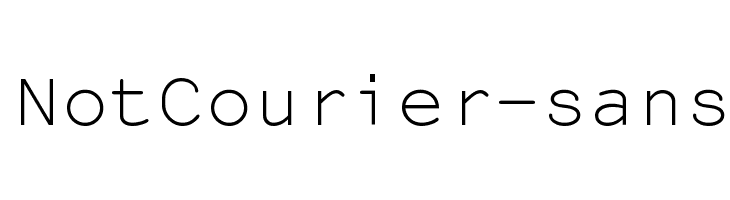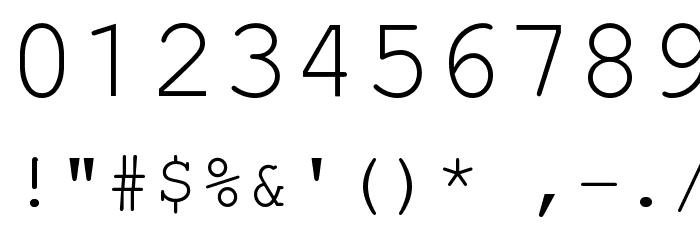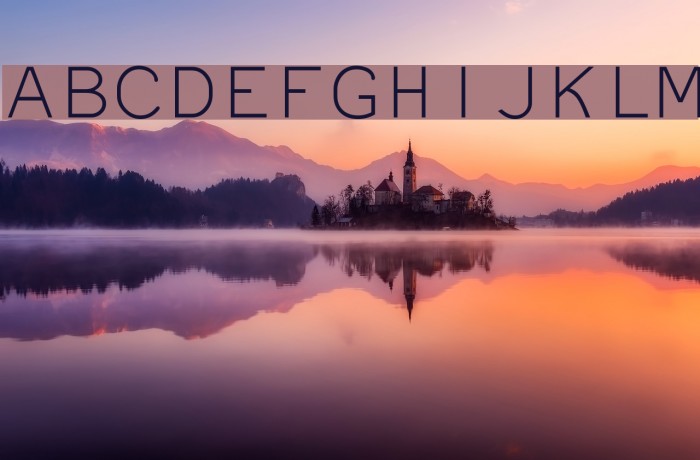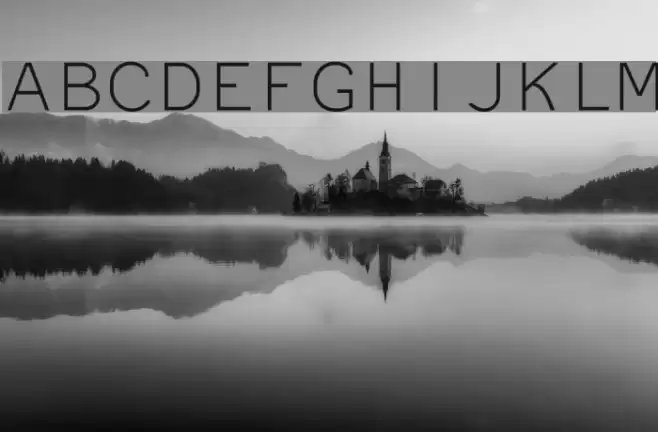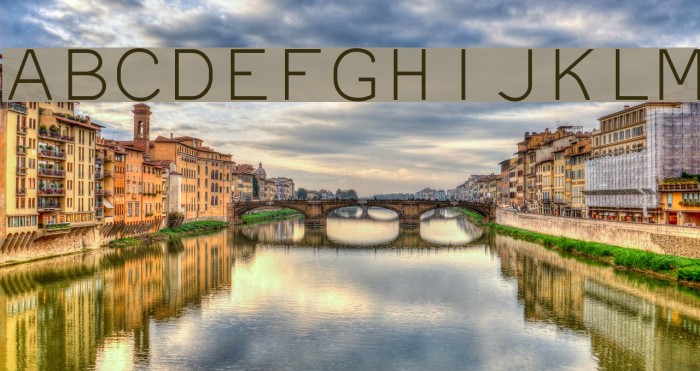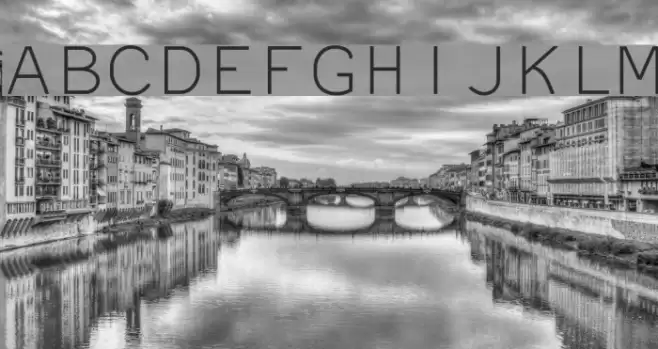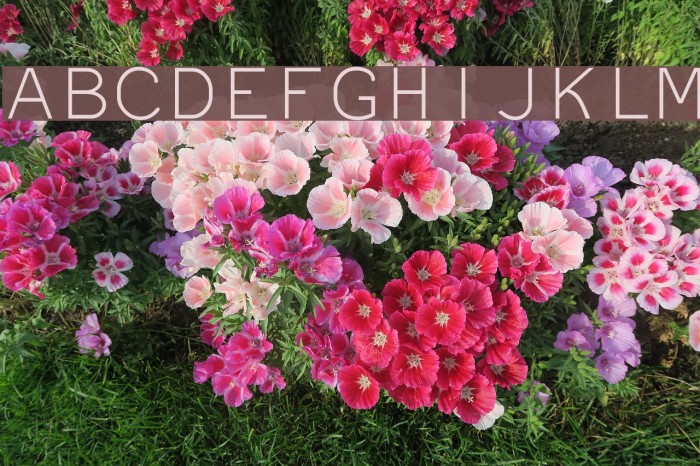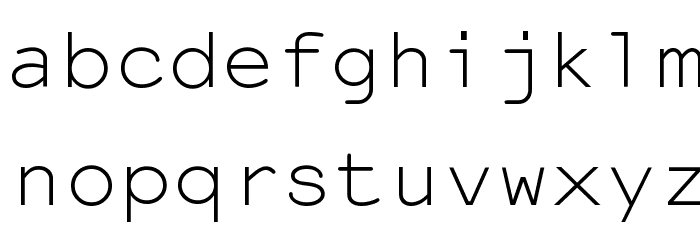
NotCourier-sans Font
NotCourier-sans Description
This font features a clean and modern sans-serif design with a minimalist aesthetic. The characters are evenly spaced, providing a balanced and harmonious appearance. The uppercase and lowercase letters maintain a consistent stroke width, contributing to a uniform look. The numerals are clear and legible, making them suitable for various applications. Special characters are well-defined, adding to the font's versatility. Overall, the font's simplicity and clarity make it an excellent choice for contemporary design projects.